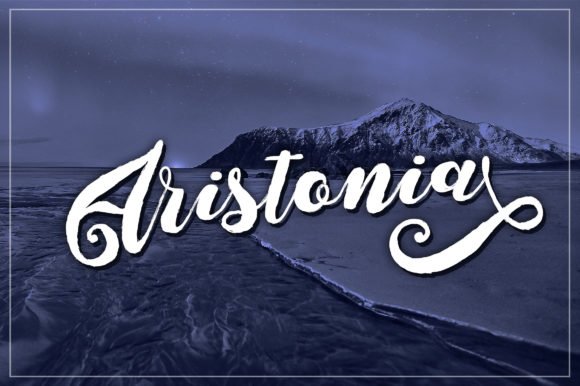
Discover the Timeless Elegance of Aristonia Font
As a designer, have you ever stumbled upon the perfect font that transports you to a world of classic charm and sophistication? For me, that moment came when I discovered the Aristonia Font. Its delicate, handwritten strokes evoke the feeling of a bygone era, yet its friendly feel makes it perfect for modern designs.
Aristonia Font is more than just a beautiful font – it’s a carefully crafted tool for creatives who want to add a touch of elegance to their work. Whether you’re designing wedding invitations, social media posts, or greeting cards, this magical font is sure to impress. With its classic style and authentic calligraphy, Aristonia Font is a valuable addition to any designer’s toolkit.
- Unique Characteristics: Aristonia is a high-end, modern script font with elegant, flowing connections and subtle flair, ideal for premium branding, invitations, and creative projects
Aristonia Font Review
I had the chance to work with the Aristonia font, and I must say it’s a unique addition to any design project. ✨ One of the things that stands out about this font is its elegant and refined feel, making it perfect for luxury brands, high-end fashion, or any other niche that requires sophistication. The subtle curves and rounded edges give it a soft, approachable touch that’s hard to resist.
Another great aspect of the Aristonia font is its versatility. ✨ It’s suitable for both print and digital media, and it can be used in a variety of contexts, from headlines and titles to body text and captions. The font also comes in a range of weights, from light to bold, which provides designers with a lot of flexibility when it comes to achieving the desired look.
Limits and Considerations
While the Aristonia font has many strengths, there are a few limitations to be aware of. ⚠️ For one, the font may not be the best choice for projects that require a bold, edgy, or modern look. It’s a more classic, timeless design that may not appeal to everyone. Additionally, the font may not be as readable in very small sizes or at very low resolutions.
Overall, I think the Aristonia font is a great addition to any designer’s toolkit. It’s a beautiful, elegant font that’s perfect for luxury brands or any project that requires a touch of sophistication. While it may not be the best choice for every project, it’s definitely worth considering for the right client or application.
- Elegant and refined feel
- Subtle curves and rounded edges
- Suitable for print and digital media
- Versatile and adaptable
- Range of weights (light to bold)
Tips for Getting the Most Out of Aristonia Font
Use Aristonia Font for headings and titles to add a touch of elegance and sophistication.
Combine Aristonia Font with other fonts to create a unique and visually appealing design.
Experiment with different font sizes and styles to achieve the desired effect.
Aristonia Font is ideal for:
Business cards and marketing materials